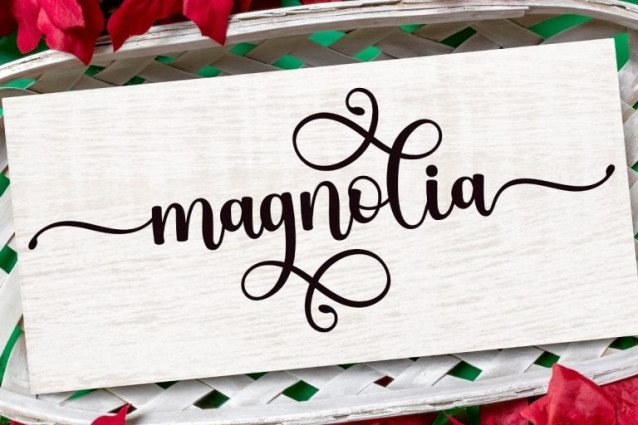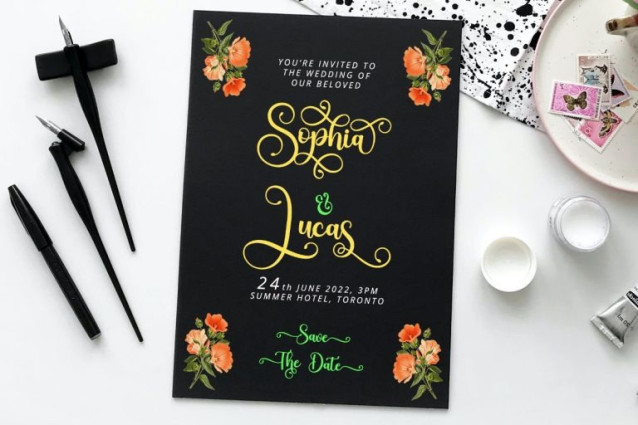
Home Vintage Font
Home Vintage is sweet modern calligraphy script. This font has 3 tail swashes and lots of swirl extra glyphs to give options in designing.
Home Vintage font is perfect font for any projects, such as wedding invitation, Christmas design, branding, logo, lettering, crafting, sticker, sublimation, and many more.